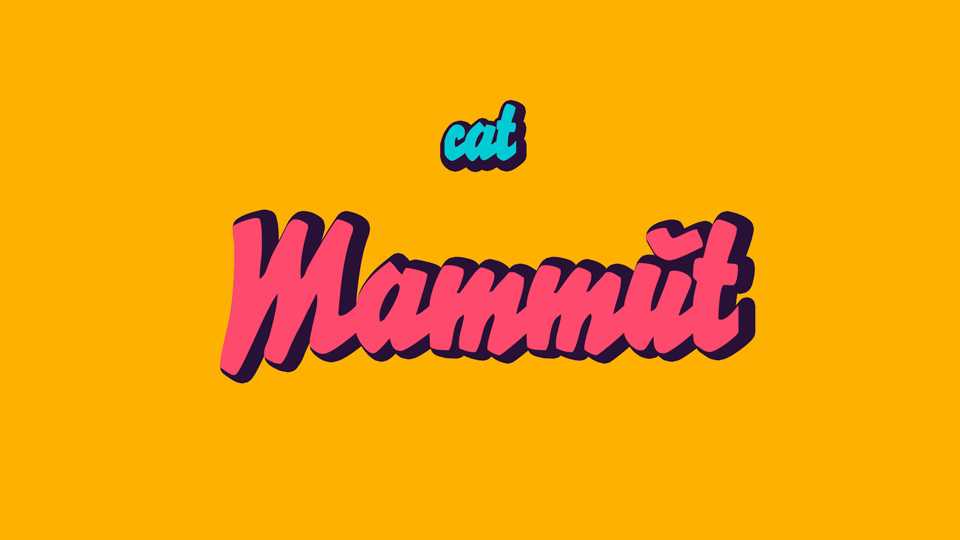
Download Mammut CAT font, a semibold brush script based on the Mammut typeface for advertising, published by Ludwig Wagner A.G. foundry in 1932 and after became quite popular.